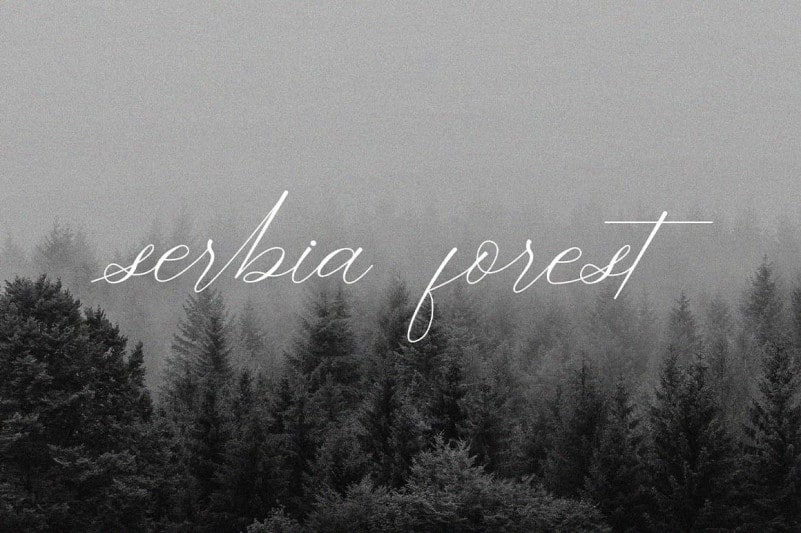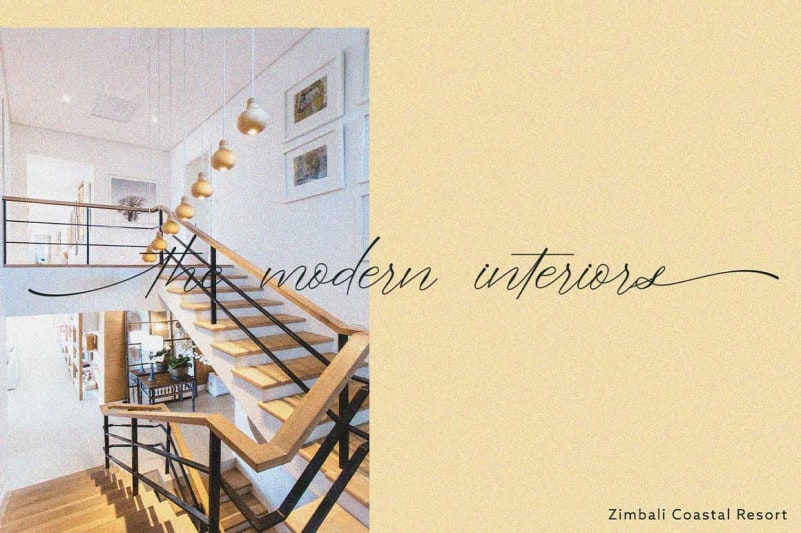
Dramatic Style Calligraphy Font is a smooth, elegant and flowing Calligraphy font. It has a beautifully balanced character, it fits into many designs. It’s designed and shared by JunCreative. It has beautiful and well balanced characters and as a result, it matches a wide pool of designs. Add it to your most creative ideas and notice how it makes them come alive!
This font is PUA encoded which means you can access all of the glyphs and swashes with ease! It features a varying baseline, smooth lines, gorgeous glyphs and stunning alternates.